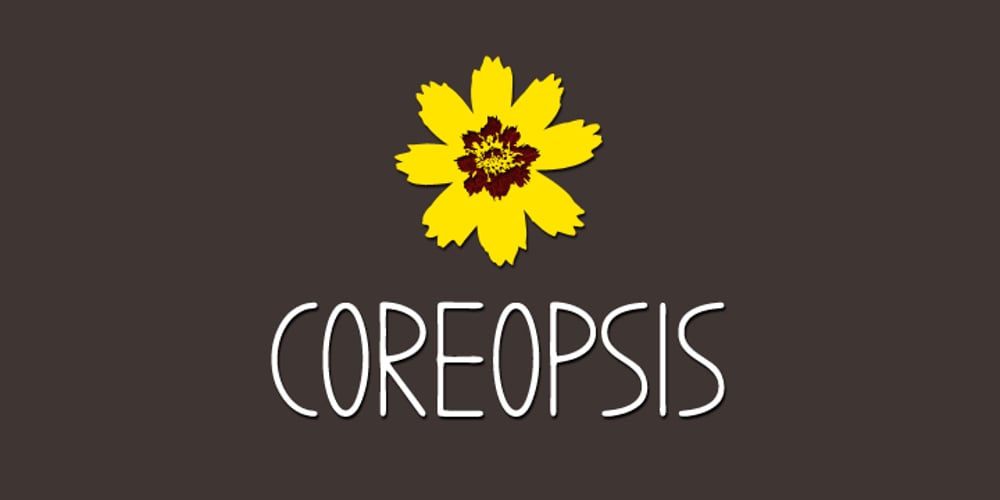
Coreopsis
Coreopsis font
Coreopsis Font Family was designed by Andrew Harper and published by Andrew Harper Fonts. Coreopsis contains 6 styles and family package options. Coreopsis is a family of fonts that combines mathematical precision with a hand-drawn feel. Versatile enough to be applied to an attention-grabbing headline, or to blocks of paragraph text. Coreopsis is available in three weights.